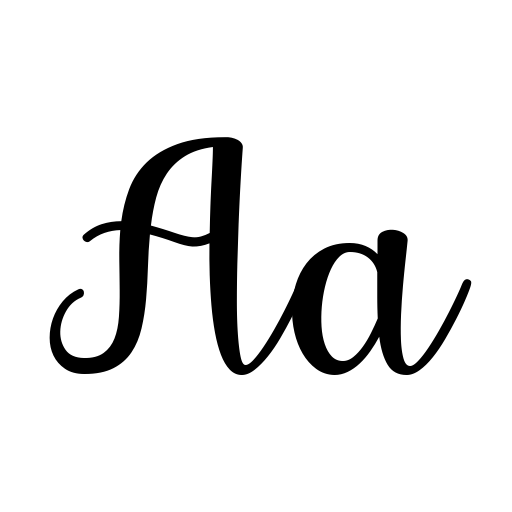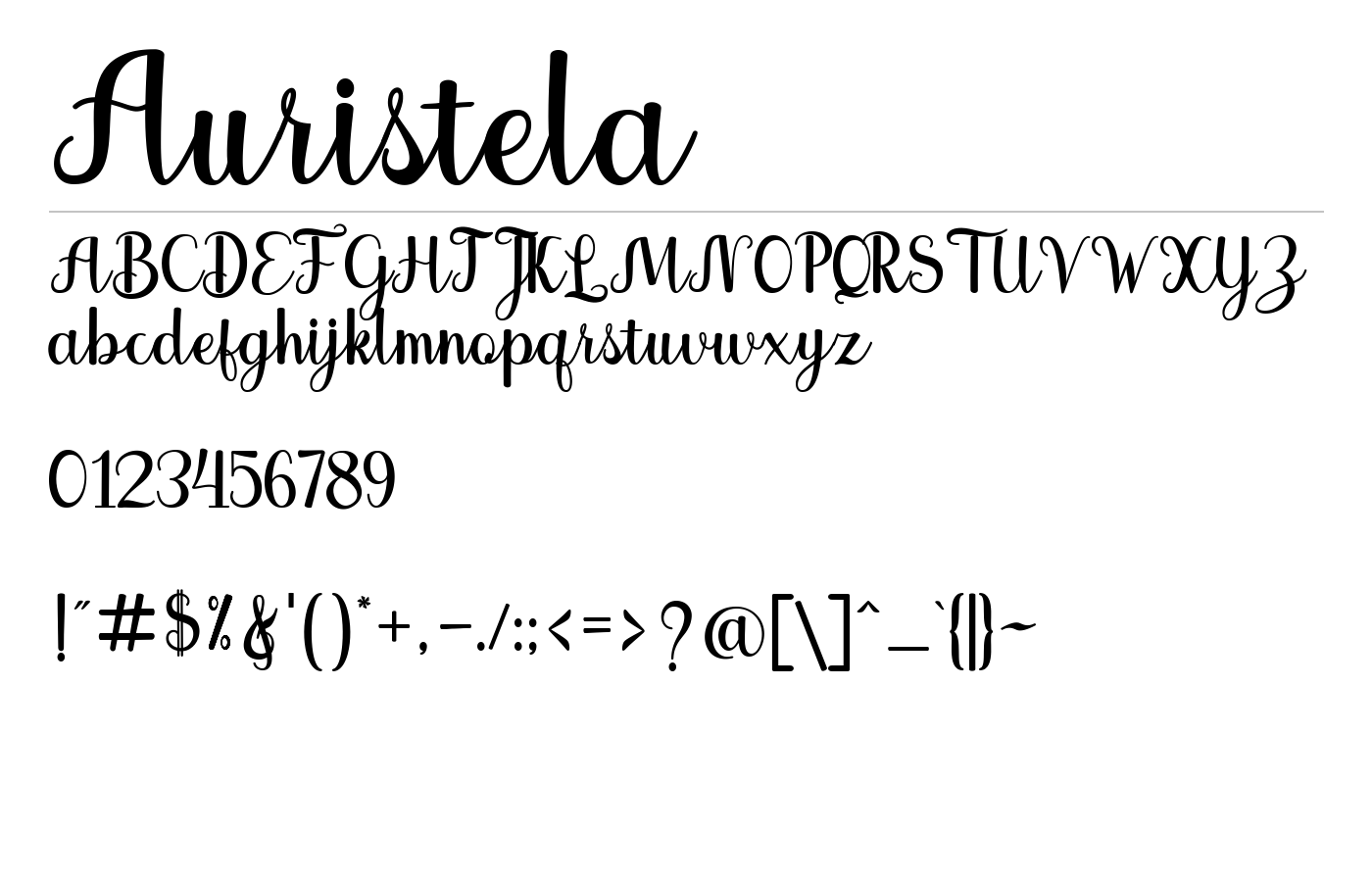
Auristela is an elegant script font with a smooth, handwritten feel and moderately high contrast between strokes. Its tall x-height and flowing letterforms give it a graceful yet approachable look, making it ideal for invitations, branding, and packaging that want to convey charm and sophistication. This font works well for decorative headlines and logos where a stylish, personal touch is desired.
Auristela Font
About Auristela Font
| Designer | Haikal Juanda |